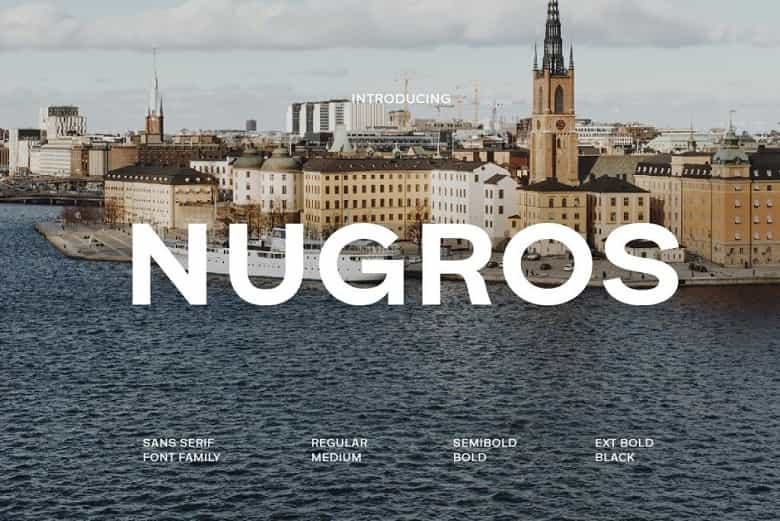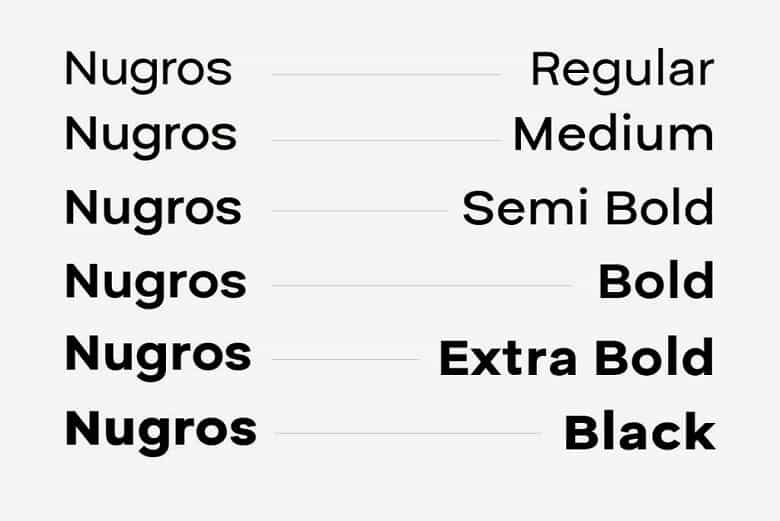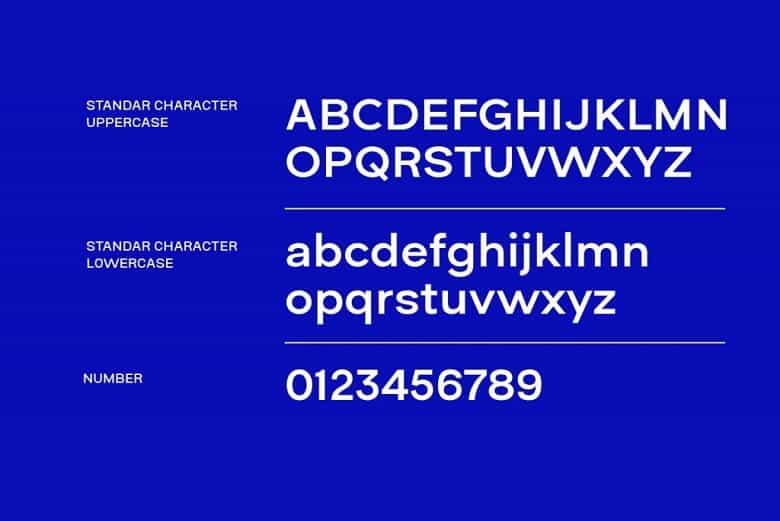
Nugros Font Family
Nugros is a new sans serif font family with clean lines and contemporary look, that can be used for various purposes. This font can be used in formal designs like logo, websites, brochures and or pamphlets. The typefaces chosen are simple and legible with a clean and corporate look to the design.